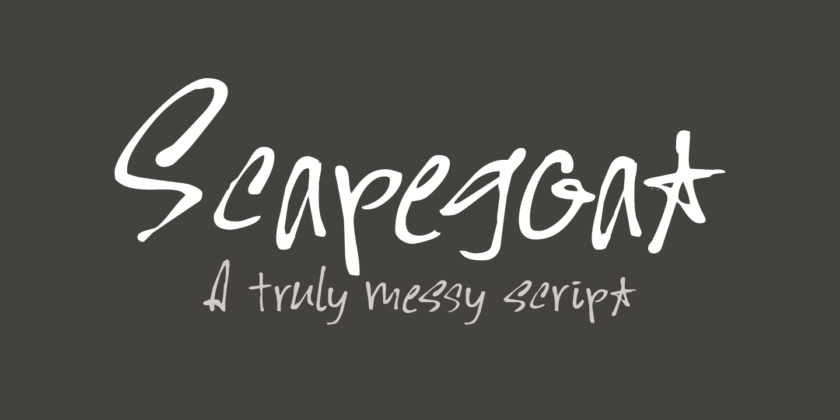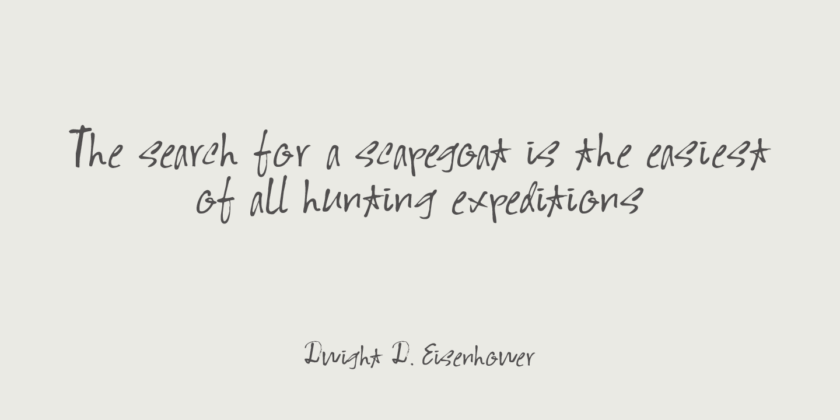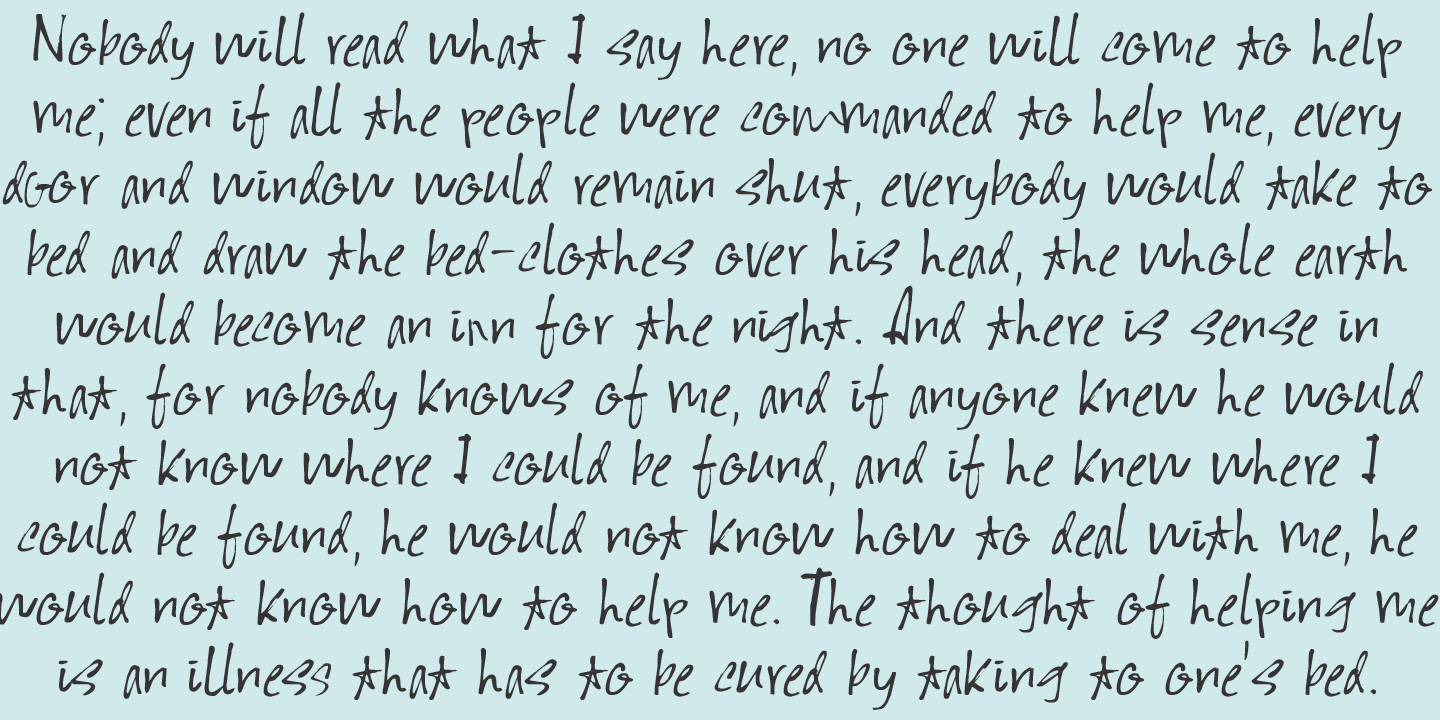
About Scapegoat
I have been making some clean, connected fonts lately and when I was working on another one of these, I felt the need for something chaotic. So, Scapegoat was born. I used a round nibbed steel pen and Chinese ink and the result is quite a messy font.…